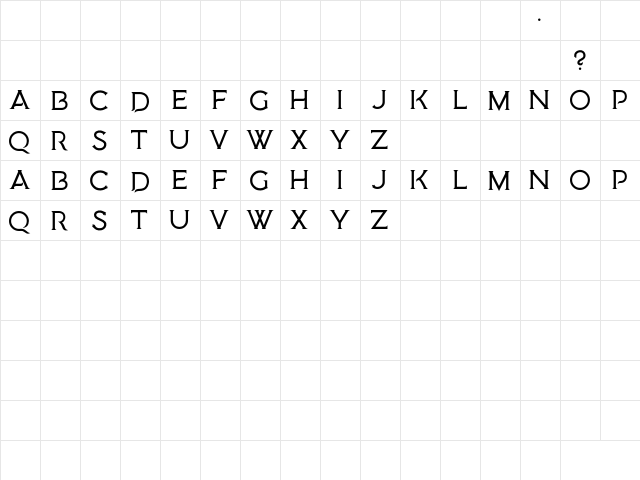
Medusa Gothic Regular
Design Context for Medusa Gothic Typeface
Medusa Gothic takes a clean, functional approach — its unadorned letterforms prioritise legibility and work reliably across screen and print environments.
Font Pairing: Works well alongside a characterful serif or display font that can carry the expressive load while Medusa Gothic handles the functional copy.
Pro Tip: Use Medusa Gothic for UI labels, navigation, and short-form body copy where clean legibility is the priority.